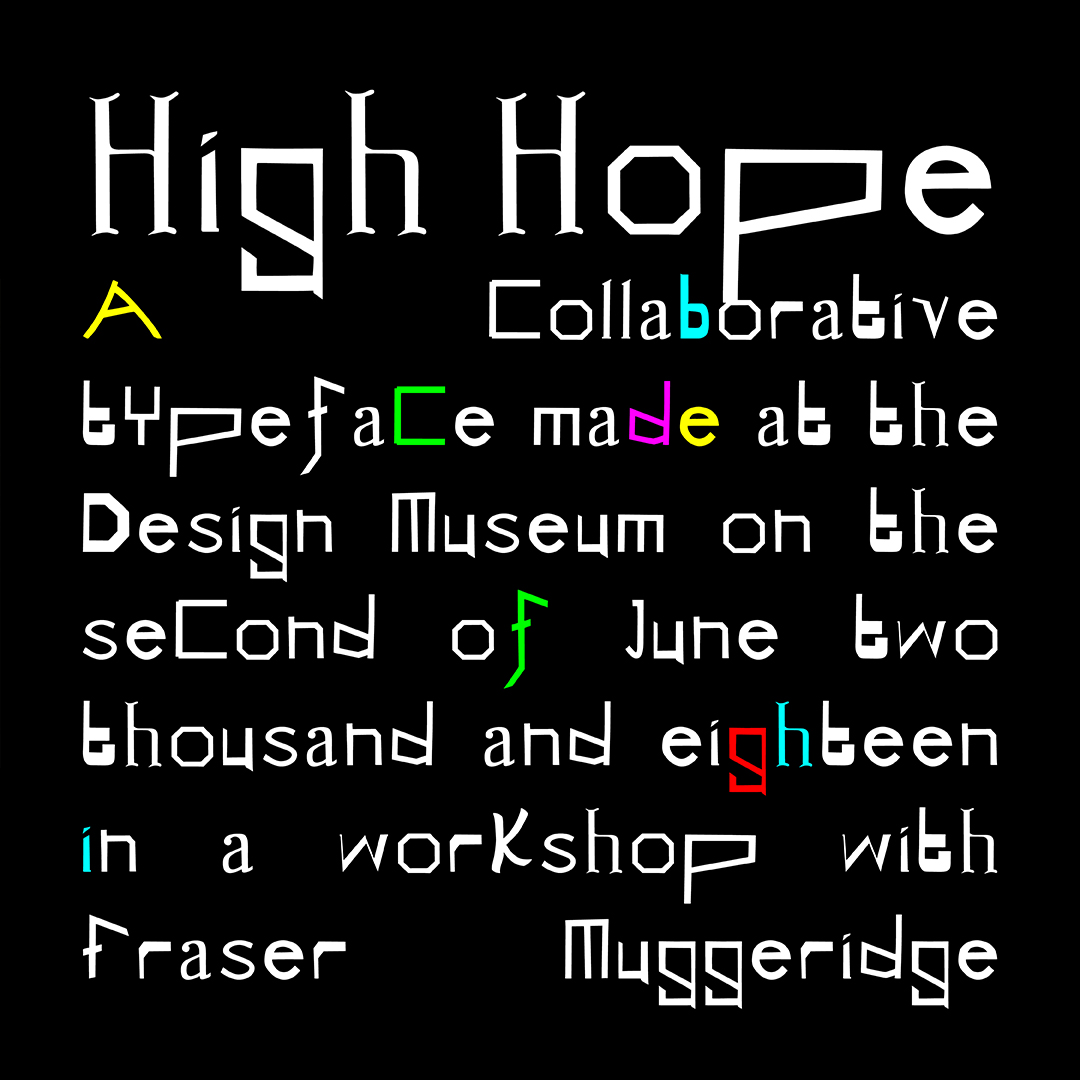
Name: High Hope
Designers: Fraser Muggeridge in collaboration with typography workshop participants
Foundry: Fraser Muggeridge Studio
Release Date: June 2018
Back Story: High Hope is the product of a one-day typography workshop offered in conjunction with the exhibition, ‘Hope to Nope: Graphics and Politics 2008-18’ at The Design Museum in London. Fraser Muggeridge of the seven-person design firm in London that bears his name led the workshop in accordance with the principles important to his own work. He describes these on his website as: “Prioritize artists’ and writers’ content over the imposition of a signature style, and allow images and texts to sustain their own intent and impact, [so that] each project is approached with typographic form and letterform playing a key role in arriving at a sympathetic yet subtly alluring object.”
Participants in the June workshop were asked to create a collaborative typeface based on type elements they observed on a ‘Type Safari’ through the exhibition. They photographed and sketched letterforms to use as starting points, and hand-drew their own characters before cutting them out of brightly colored paper. To keep the letterforms alive for the computer version that was created later, Muggeridge says, “Everything was digitalized in a quick, crude, and spirited way.” The only rule that participants needed to follow? Follow set constraints of x height, cap height, and stem width.
Why’s it called High Hope? The name is a mashup of The Design Museum’s address on Kensington High Street and the exhibition’s title.
What are its distinguishing characteristics? This typeface is not a unified design—how could it possibly be, given its democratic, crowdsourced nature? As such, its distinguishing characteristics are its lack of formality and consistency. It moves between serif/san serif and upper/lower case with few commonalities among the characters besides the imposed restraints (some of which appear to have been fudged a bit: there is definitely some variation in the stem widths). The alphabet shares a visual sensibility with the punk gig posters and zines of the 1990s: its of-the-moment spontaneity thumbs its nose at the rules of formal type design that requires countless hours of careful research, development, and refinement.
“High Hope feels a little bit punk-y and full of hope thanks to its naive approach,” says Muggeridge. “If a participant didn’t get around to designing a lower case c, we just used the upper case C.”
What other typefaces do you like to pair it with? “Entirely up to the designer using it!” Muggeridge says. Or may we suggest something very rational like Gill Sans Nova?